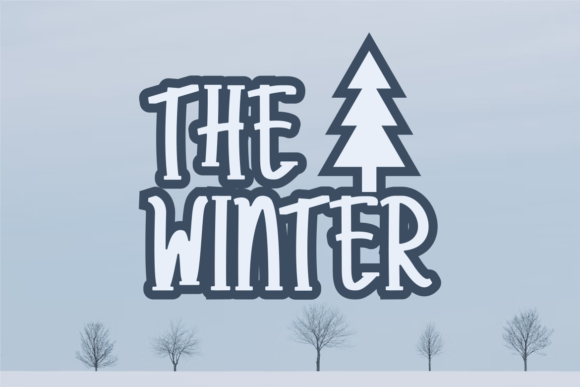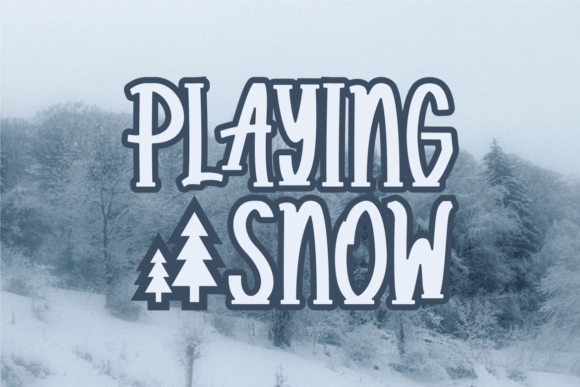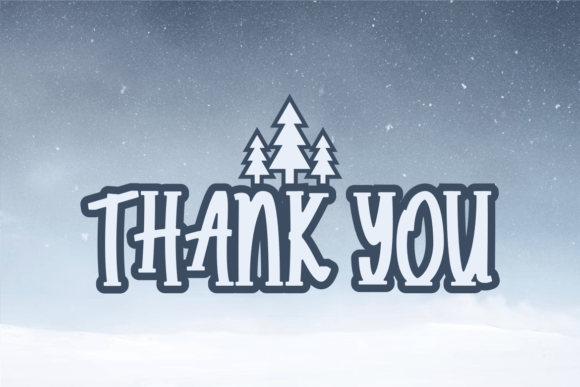
Introduction to Hallonis Font
Have you ever found yourself stuck in a creative rut, staring at a blank page or screen, desperate for the perfect font to bring your project to life? I know I have! That’s when I stumbled upon the Hallonis Font, and it was like a breath of fresh air. This adorable serif font is the perfect addition to any design project, and its free download makes it accessible to everyone.
What sets Hallonis apart is its high-quality, transparent background, making it easy to integrate into any design. As a valuable design resource, Hallonis Font is perfect for creatives looking to add a playful touch to their projects. Its cute and friendly characters will undoubtedly brighten up any design, making it a must-have for designers seeking a fun and unique aesthetic.
Key Features of Hallonis Font
- High-quality design resource with a unique, elegant style perfect for creative projects.
- Designed to be highly legible and versatile, making it suitable for a wide range of applications, from print to digital media.
- Includes a comprehensive set of characters, including uppercase and lowercase letters, numbers, and punctuation marks.
Honest Review: Hallonis Font
One of the standout features of the Hallonis Font is its high-quality design. The font has a unique and creative aesthetic that’s perfect for a variety of projects, from branding and marketing materials to digital products and print designs.
Overall, I’m really impressed with the Hallonis Font. Its high-quality design and flexibility make it a valuable addition to any designer’s toolkit. Whether you’re working on a small project or a large-scale creative endeavor, the Hallonis Font is definitely worth considering.
Hallonis Font
What is Hallonis Font?
Hallonis Font is a high-quality design resource perfect for creative projects. It’s a great addition to any design project, offering a unique and stylish look. This font is available for free download, making it an excellent choice for designers on a budget.
Common Use Cases for Hallonis Font
Hallonis Font is perfect for a variety of creative projects, including social media graphics, presentations, and documents. Its high-quality design and transparent background make it an excellent choice for designers and non-designers alike.